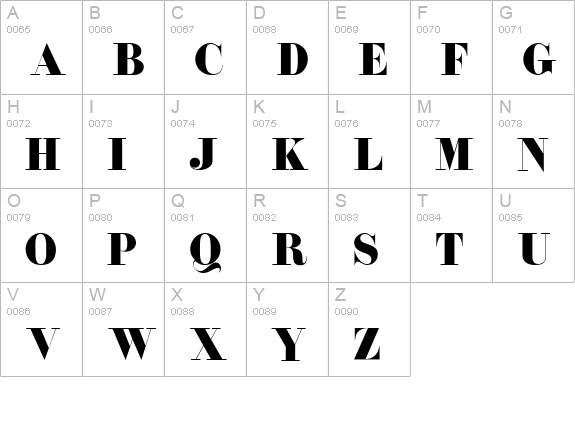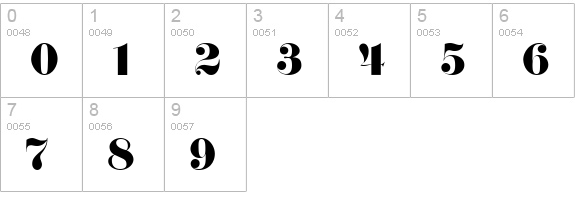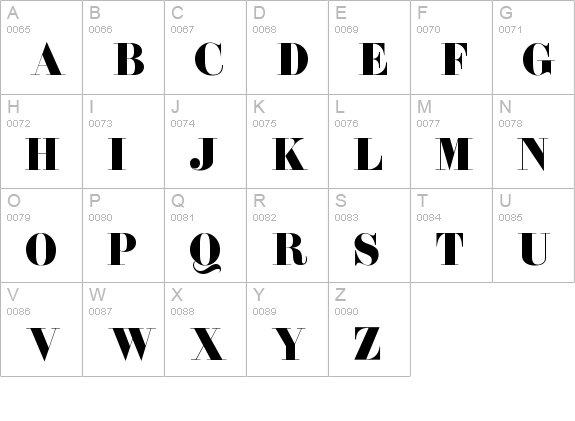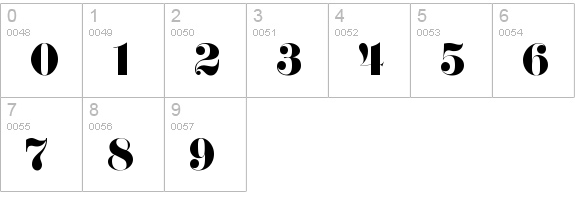
TQF_Florentine Font Details
TQF_Florentine font is a captivating and elegant typeface that will add a touch of sophistication to any design project. With its intricate and delicate letterforms, this font exudes a sense of grace and beauty that will instantly draw attention. The flowing lines and harmonious curves of TQF_Florentine make it a perfect choice for various creative endeavors, such as wedding invitations, branding materials, logos, and much more. Its timeless design allows it to effortlessly blend into both traditional and modern aesthetics, making it a versatile option for any design style. One of the most remarkable aspects of TQF_Florentine font is that it is available for free download at FontsMarket.com. This means that you can easily access and utilize this stunning typeface without any cost. Whether you are a professional designer or a hobbyist, the availability of TQF_Florentine font for free allows you to explore your creativity without any constraints. The wide range of characters and glyphs available in TQF_Florentine font further enhances its usability. With multiple alternates and ligatures, you can easily create unique and personalized designs that truly stand out. The attention to detail and craftsmanship in this font ensures that each letter is meticulously designed, resulting in a visually pleasing and harmonious text. Moreover, TQF_Florentine font is highly legible, ensuring that your message is easily understood by your audience. Whether used for headlines or body text, this font maintains its clarity and readability, even at smaller sizes. In conclusion, TQF_Florentine font is a stunning typeface that combines elegance and versatility. Its freely available download at FontsMarket.com allows designers of all levels to access this beautiful font and enhance their creative projects. With its timeless design, attention to detail, and legibility, TQF_Florentine font is a must-have for anyone seeking to elevate their designs to the next level.